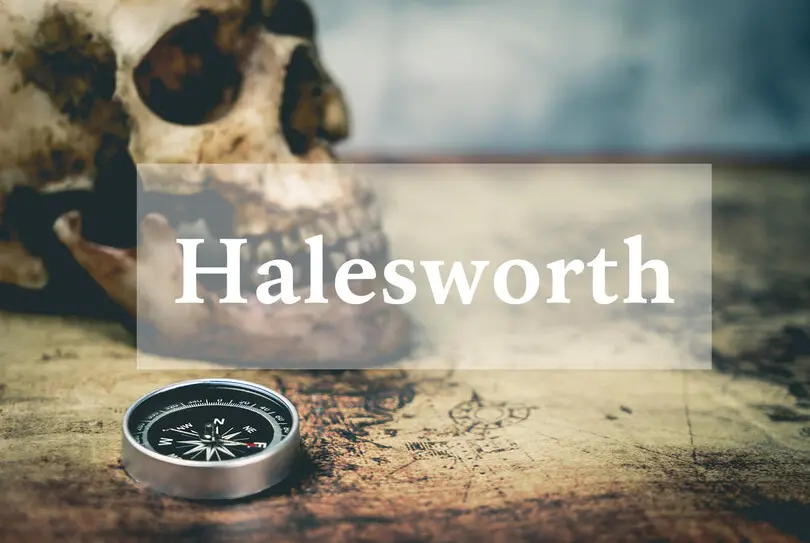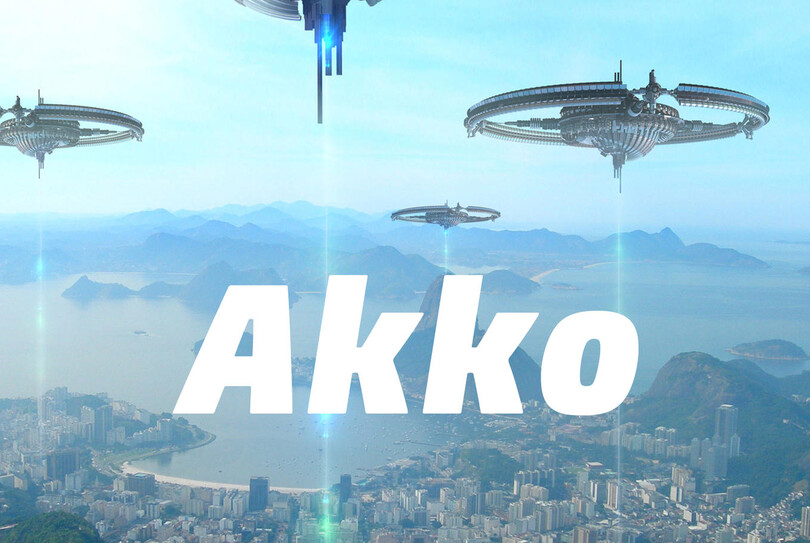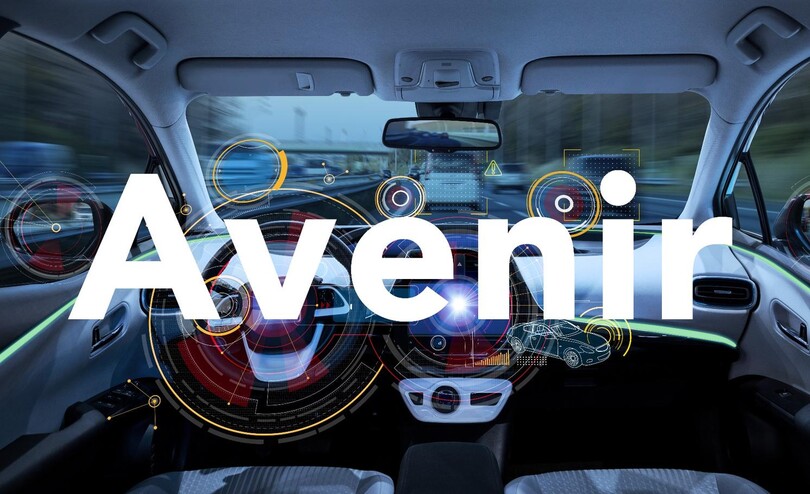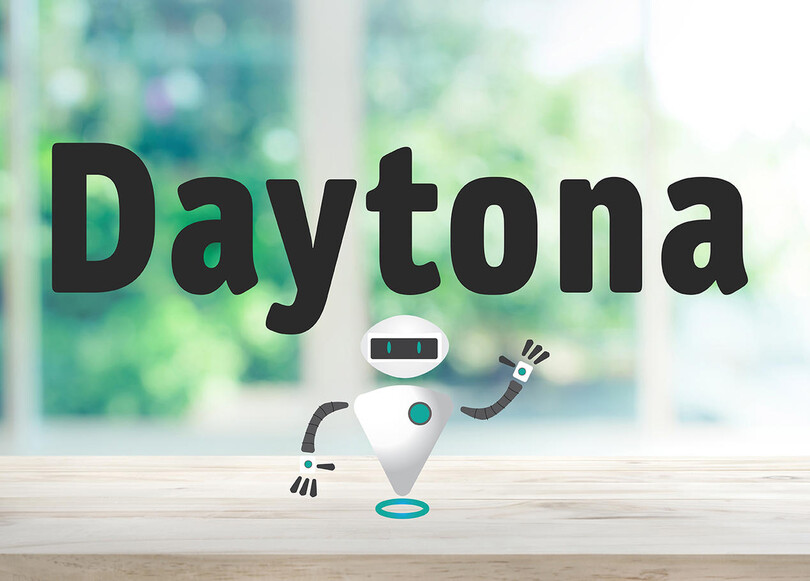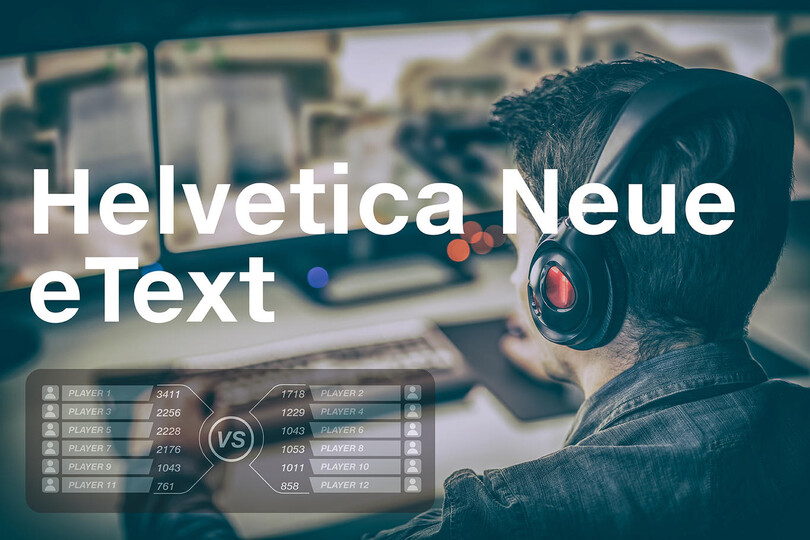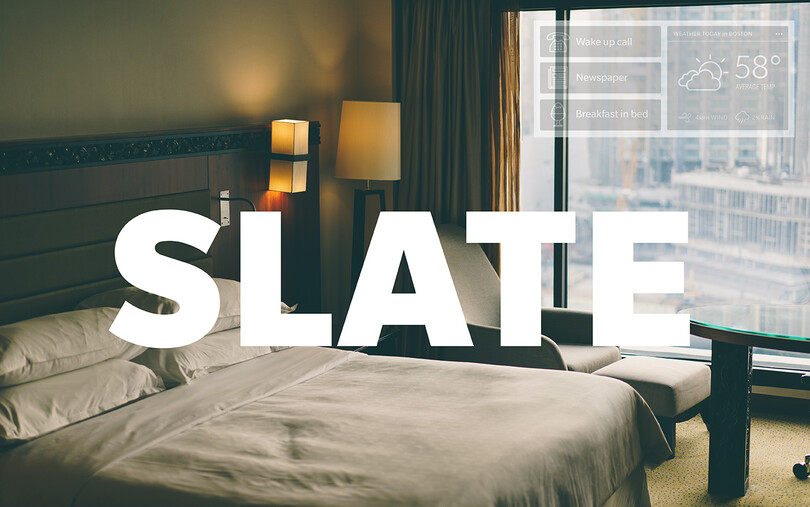
Fonts to fit your augmented and virtual reality designs.
“ Setting text in augmented and virtual reality presents new design challenges that are dramatically different from practically any other existing medium. ”
Setting text in augmented and virtual reality presents new design challenges that are dramatically different from practically any other existing medium. Steve Matteson, Creative Type Director at Monotype, has selected fonts that are both highly legible and represent multiple genres, offering reliable choices for AR/VR games, apps or user interfaces.
Avenir
Avenir™
The word Avenir means ‘future’ in French and hints that the typeface owes some of its interpretation to Futura. But unlike Futura, Avenir is not purely geometric; it has vertical strokes that are thicker than the horizontals, an “o” that is not a perfect circle, and shortened ascenders. Avenir represents the most legible of designs within the geometric sans serif genre. The challenges posed by fully geometric typefaces are reduced in Avenir, putting the emphasis on legible shapes, open forms and ample letter spacing. Avenir would work well for extended text in AR/VR or lend modern flair to interfaces for home appliances or IoT.
Daytona
Daytona™
The Daytona typeface family grew out of Jim Wasco’s desire to design a readable typeface for video and on-screen use. Because of its exceptional legibility, it’s also an ideal choice for digital user interfaces and a wide range of print applications. Daytona softens an otherwise modern engineered style, with rounded forms lending an air of informality. This makes it the perfect font for a children’s AR/VR game or app. Originally designed for navigation and wayfinding, the font would also work well for heads-up displays. Daytona can offer the user a friendlier appearance – even in a potentially intimidating futuristic VR experience.
Slate
Slate™
The Slate typeface melds superb functionality and aesthetic elegance into a remarkable communications tool. Slate is the work of Rod McDonald, an award-winning typeface designer and lettering artist. At one point in his forty-year career, McDonald participated in a typeface legibility and readability research project conducted by the Canadian National Institute for the Blind during which he learned the design traits that maximize character legibility and text readability. Slate offers a comfortable reading experience even in challenging technical environments like AR or VR. Slate’s contemporary flair would work well in an app interface, experiential walkthroughs or AR app filters.
Halesworth
Halesworth™
Designing a virtual experience that needs to evoke a historical or academic theme? Halesworth is a Venetian Old Style book typeface designed by Carl Crossgrove, crafted specifically for comfortable reading on screen. Halesworth preserves the beautiful, generous proportions of the Venetian genre and optimizes the details for best performance, making it an excellent choice for long-form text in a VR environment. The typeface has reduced contrast in hairline strokes, generously open counters, ample curves and sturdy serifs. Halesworth has an elegant, antique flavor but can be read comfortably on screen at any angle making it ideal for AR/VR.
Akko
Akko™
Need to design a UI for the future? Look no further than the Akko typeface. Akko’s contemporary and open design aids in reading from severe angles that can be found in VR situations. Akko was designed with very open counters and a tall x-height following market research indicating the need for a new sans serif with a “tech” look. The resulting letters are characterized by their simplicity and compactness and can be employed to save space within a layout. Akko’s tech-forward appearance combined with its space-saving qualities also make it a reliable choice for futuristic AR/VR games or experiences.
Helvetica
Helvetica eText™
Helvetica™ is the ubiquitous flagship of the Swiss Grotesque genre. The ‘e-text’ adaptation reduces hindrances to legibility commonly found in the style by offering advanced font hinting, expanded characters and modified line thickness and x-height to optimize legibility across smartphones, tablets or e-readers. Helvetica eText aids the reader while delivering style, and is particularly well suited to anything on a grid, for example to display scores or health metrics in games or for virtual eCommerce experiences.